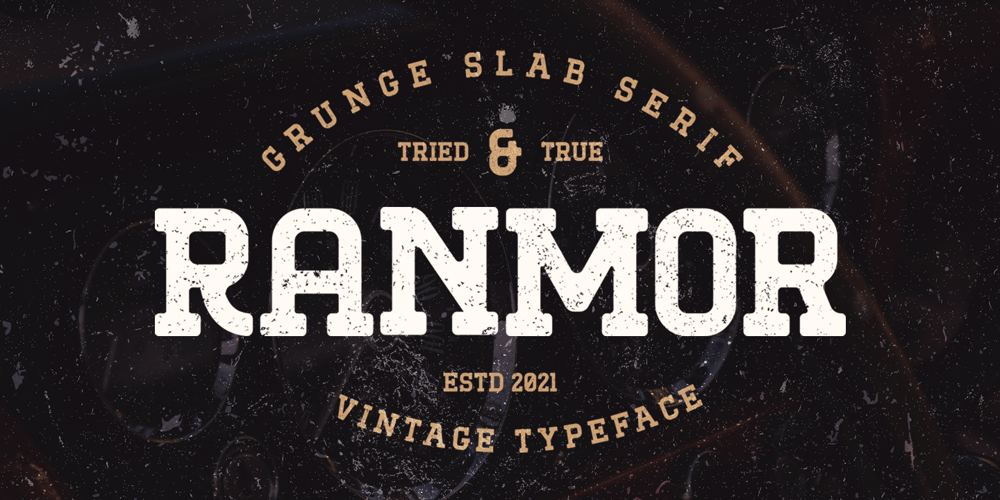
Ranmor Font Family was designed by Ahmad Ramzi Fahruddin and published by Arterfak Project. Ranmor contains 1 styles and family package options. Ranmor is a vintage slab serif typeface. Inspired by vintage logos & design, Ranmor gets the more strong typeface by adding the grunge feels, and inky effect on the letterforms. This font is a perfect choice for vintage or old-school themes.Ranmor represented strength, confidence, and an old-school aesthetic. You can use this font for many purposes such as vintage logo, mug, embroidery, prints, display, short text, packaging, cards, emblem, signage, and many more! Equipped with special characters to get your design more powerful.TTF & OTF in a zip file including : Uppercase Lowercase Numbers & punctuation Accented characters Stylistic alternates Stylistic set 01-02 That’s all, folks! Thank you for visiting.